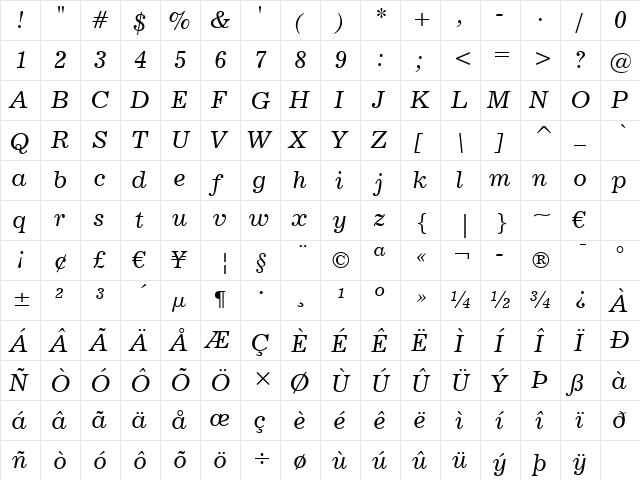
News702 BT Italic
Design Context for News702 BT Typeface
News702 BT is a composed and adaptable typeface that performs quietly and consistently across a wide range of design contexts. Its italic angle brings a sense of urgency and motion to the letterforms.
Pro Tip: Try News702 BT for annotation and caption copy alongside an upright companion — the contrast in angle creates a dynamic but ordered typographic system.